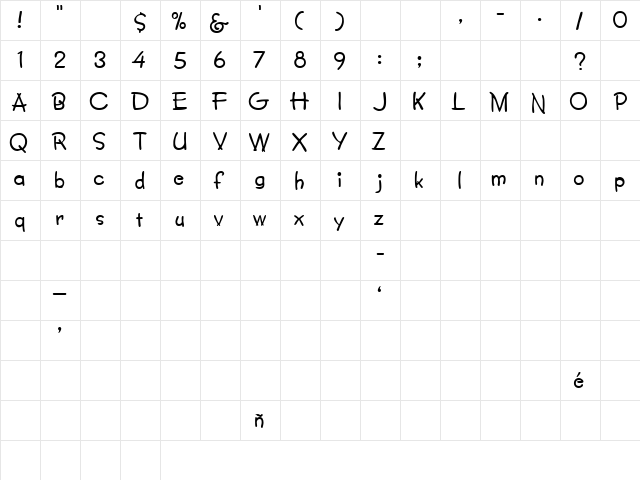
CoultaSSK Regular
Design Context for CoultaSSK Typeface
CoultaSSK takes a measured approach to typography — its balanced proportions and neutral character make it a reliable workhorse for both digital and print work.